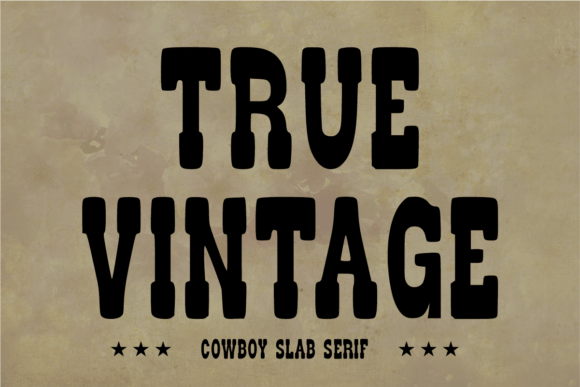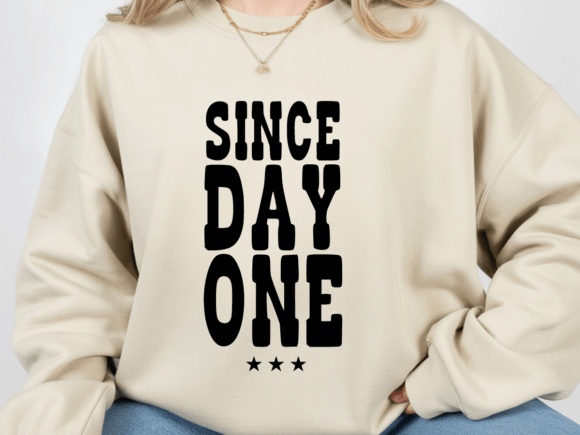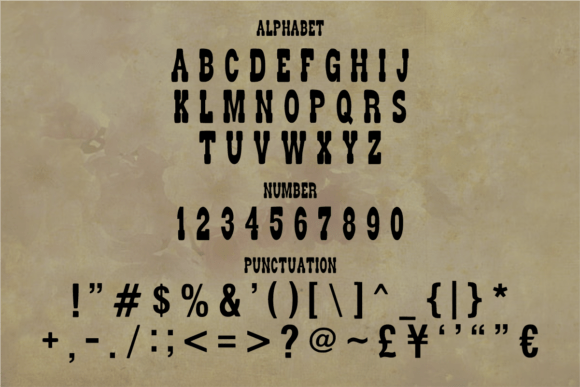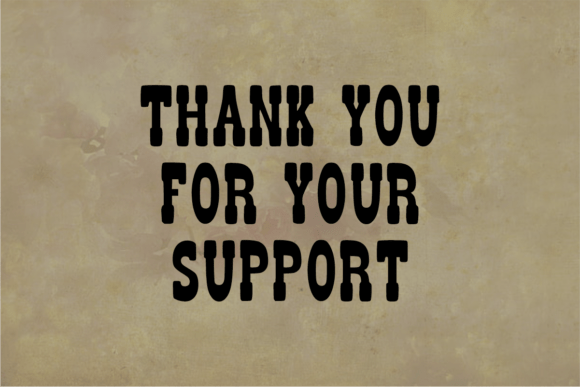
Introduction to Saddle Ridge Font
🤠 Saddle Ridge – Bold Cowboy Slab Serif Font 🌵 Saddle up your designs with Saddle Ridge.
This bold cowboy slab serif font brings a rugged, adventurous, and authentic western vibe straight to your creative workspace With its chunky, heavy letterforms and classic frontier charm, it is the ultimate display font to make your work stand out with absolute confidence and personality.
Key Features of Saddle Ridge Font
Why Choose Saddle Ridge Font?
Saddle Ridge Font offers exceptional quality and versatility, making it a valuable addition to your design toolkit. Whether you’re creating for personal projects or commercial use, Saddle Ridge Font delivers professional results.